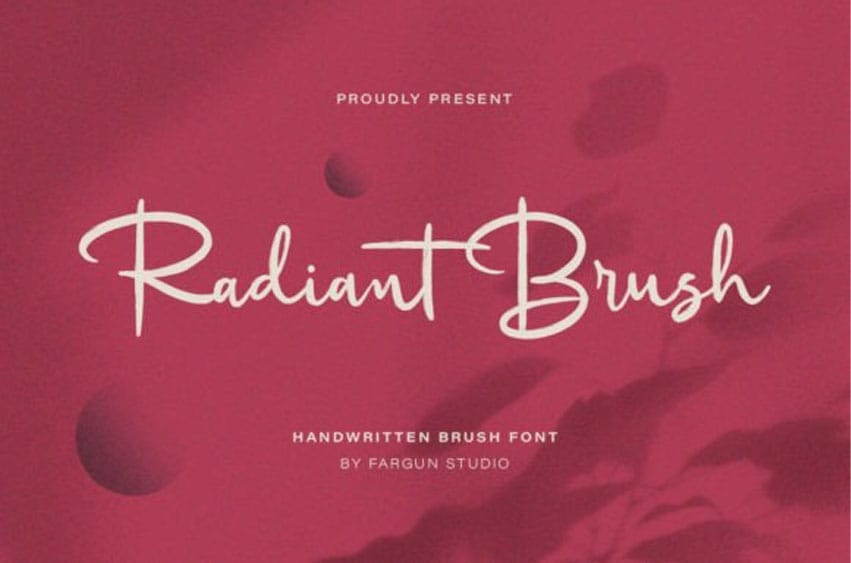
Radiant Brush Font is a beautifully handcrafted font combined with brush style that’ll make your guests sing and elevate your projects!
Every stroke, and curve was created to entice happiness and elegance. It suitable for wedding invitation, greeting cards, T-Shirt, Logo or any design that you create.